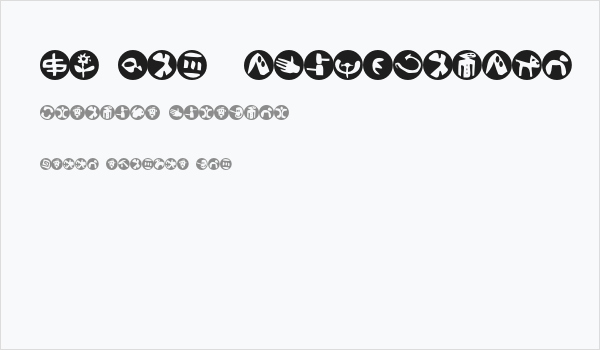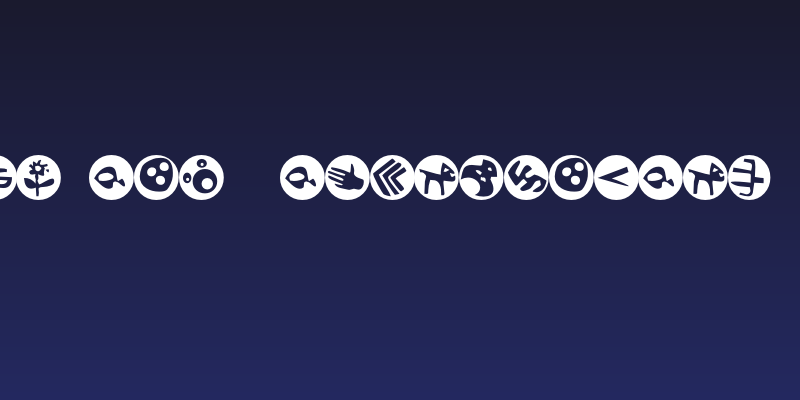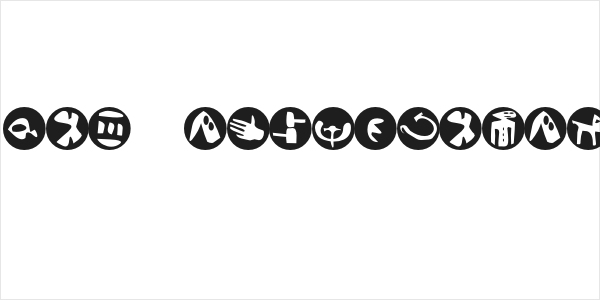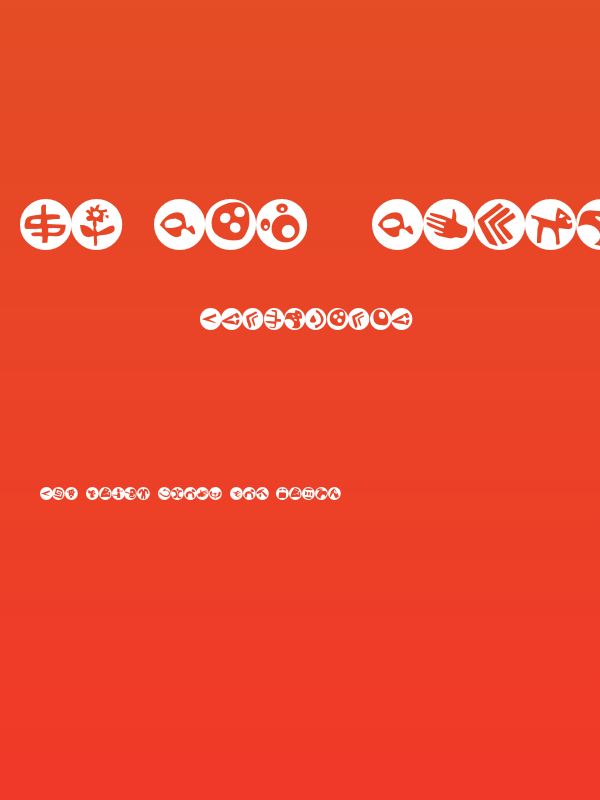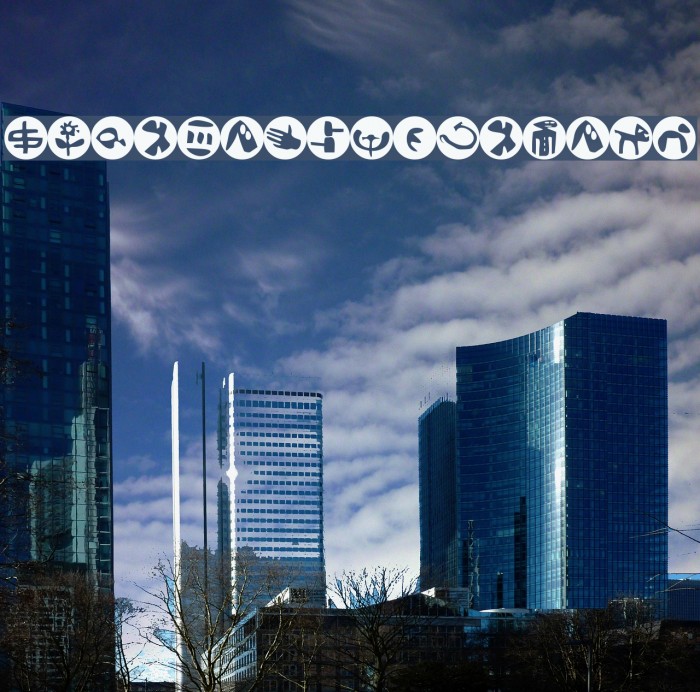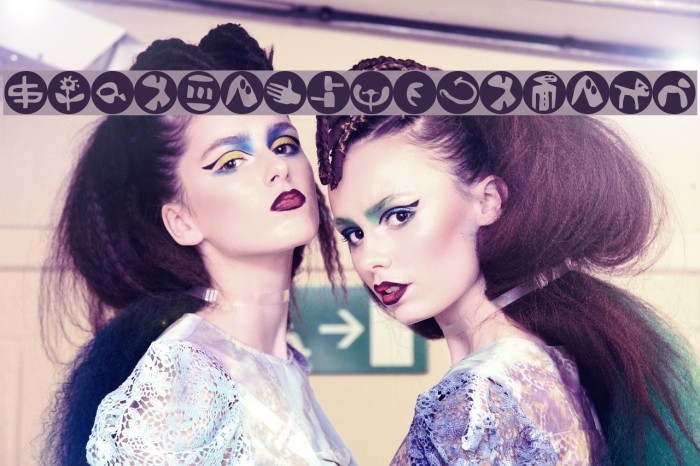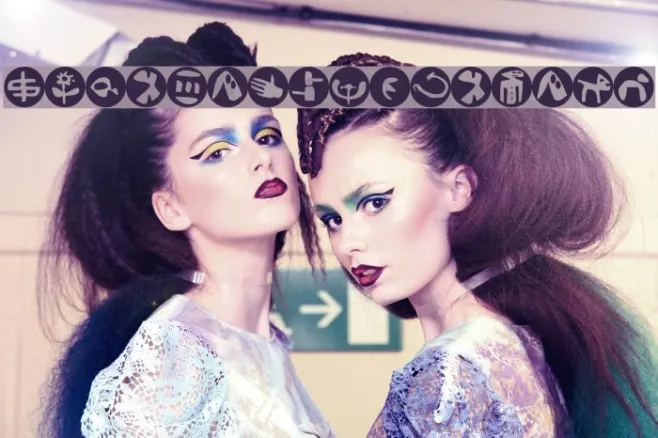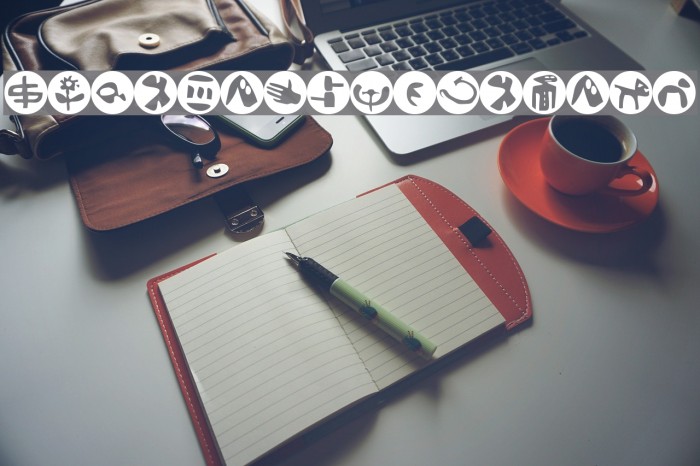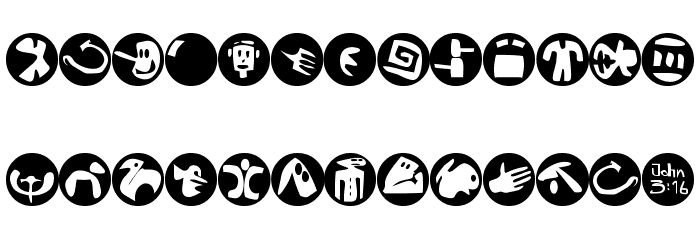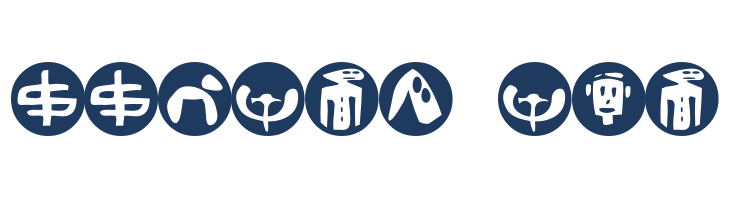
FE-Sam'sDingbatsNo.2 Font
FE-Sam'sDingbatsNo.2 Description
This collection features a series of unique and abstract symbols enclosed within circular shapes. Each symbol is distinct, ranging from geometric patterns to stylized representations of objects and animals. The bold, high-contrast design ensures that each icon stands out clearly against its background. The playful and artistic nature of these symbols makes them suitable for creative projects. The uniform circular format provides a cohesive look, making them ideal for use in decorative contexts or as part of a themed design.
| Use Case | Logos, Decorative elements |
| Proposed Projects | Ideal for use in graphic design projects, such as creating unique logos, decorative elements in print or digital media, and themed event materials. |